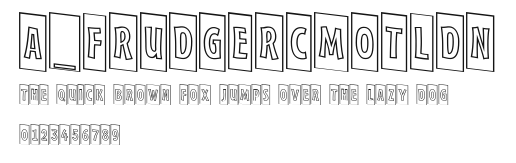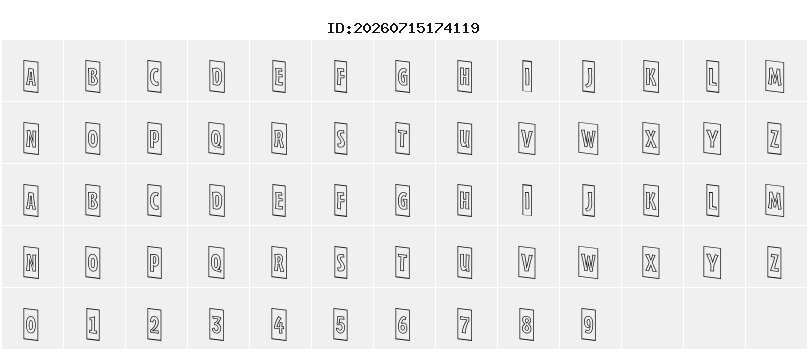
a_FrudgerCmOtlDn Preview
• Designer: W.Chufarofsky & M.Slutsker
About a_FrudgerCmOtlDn.ttf
a_FrudgerCmOtlDn.ttf is a modern, elegant sans-serif font designed for ultimate readability and visual harmony. Perfect for branding, headlines, web design, and print materials.